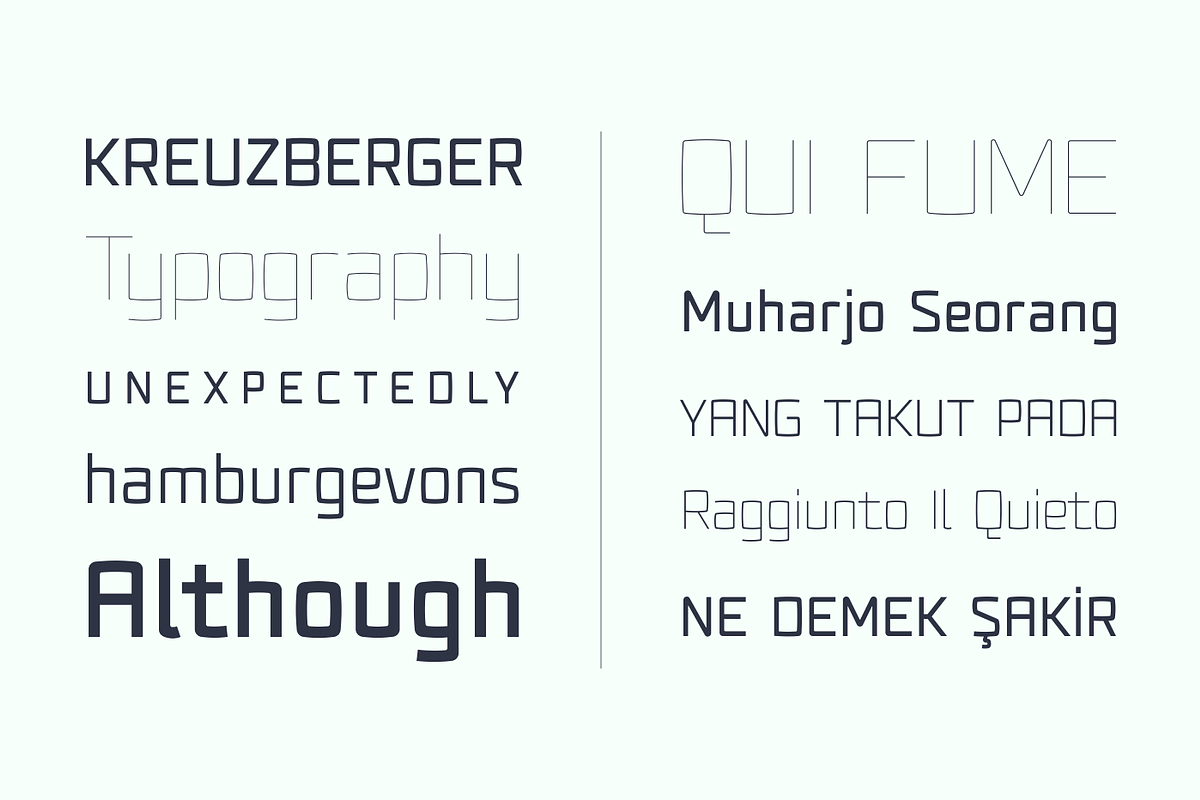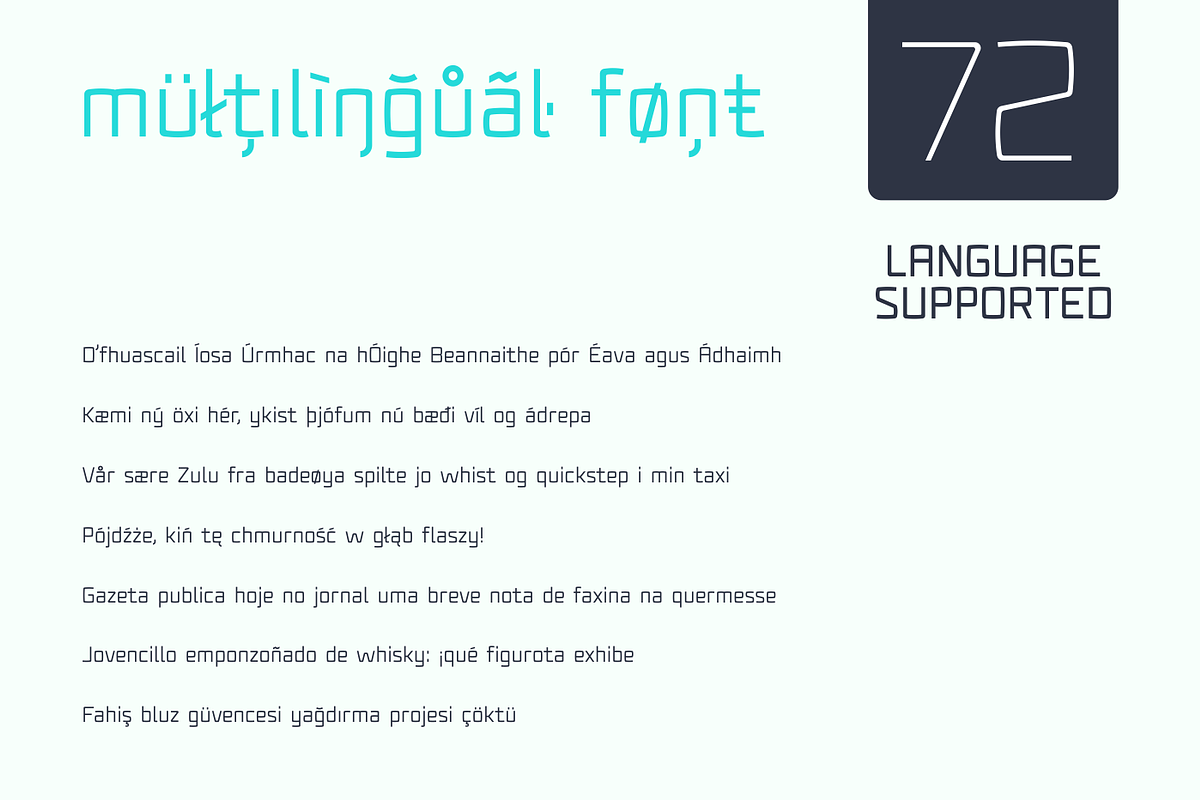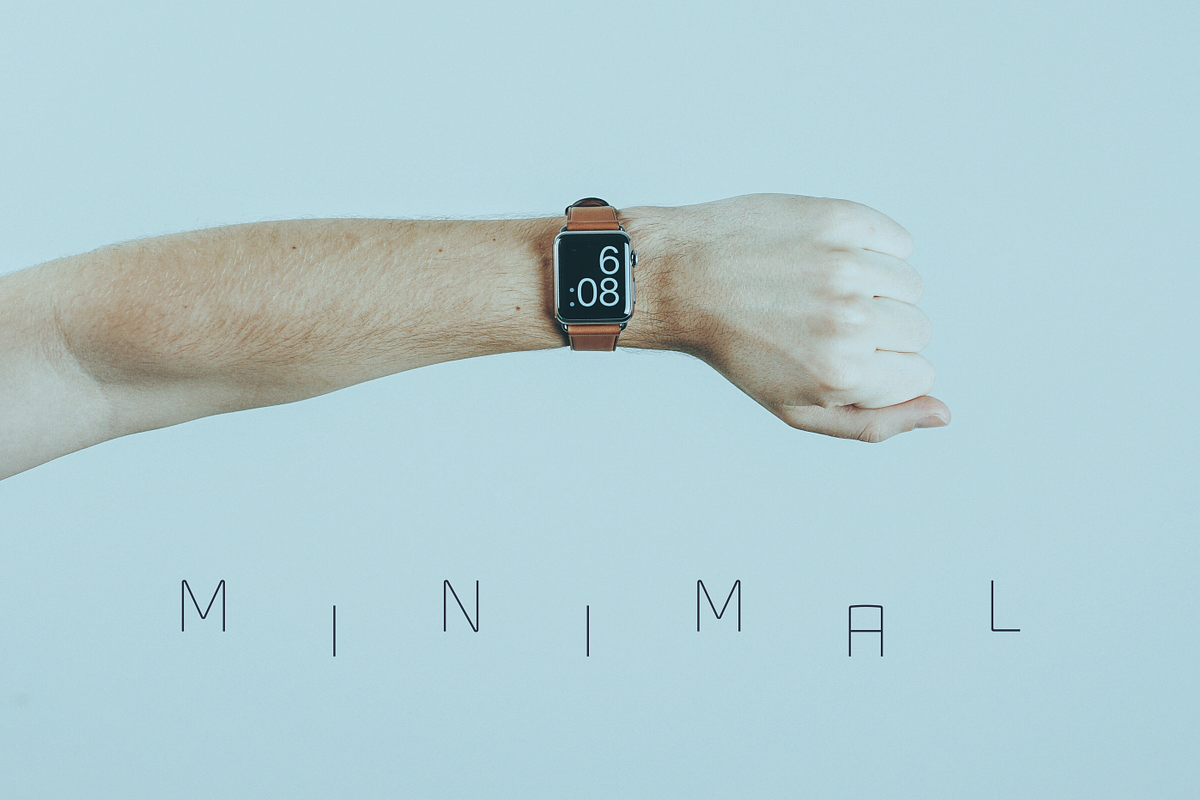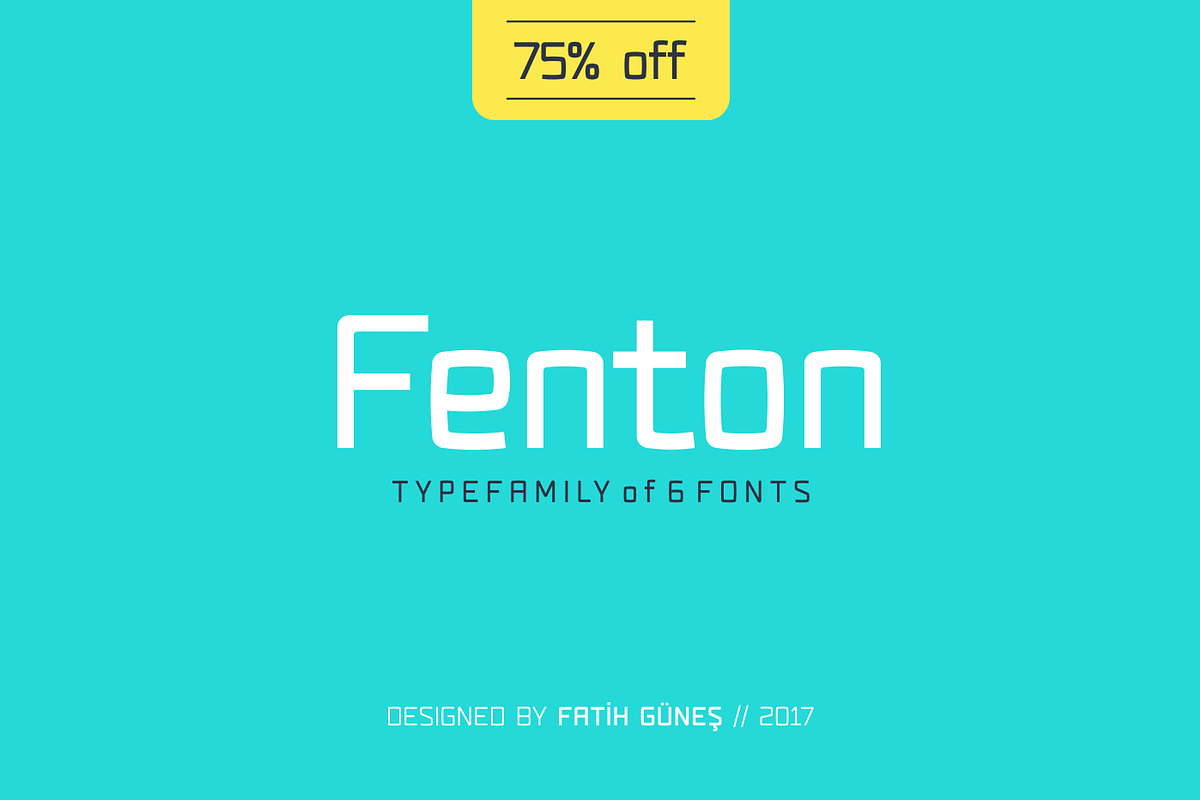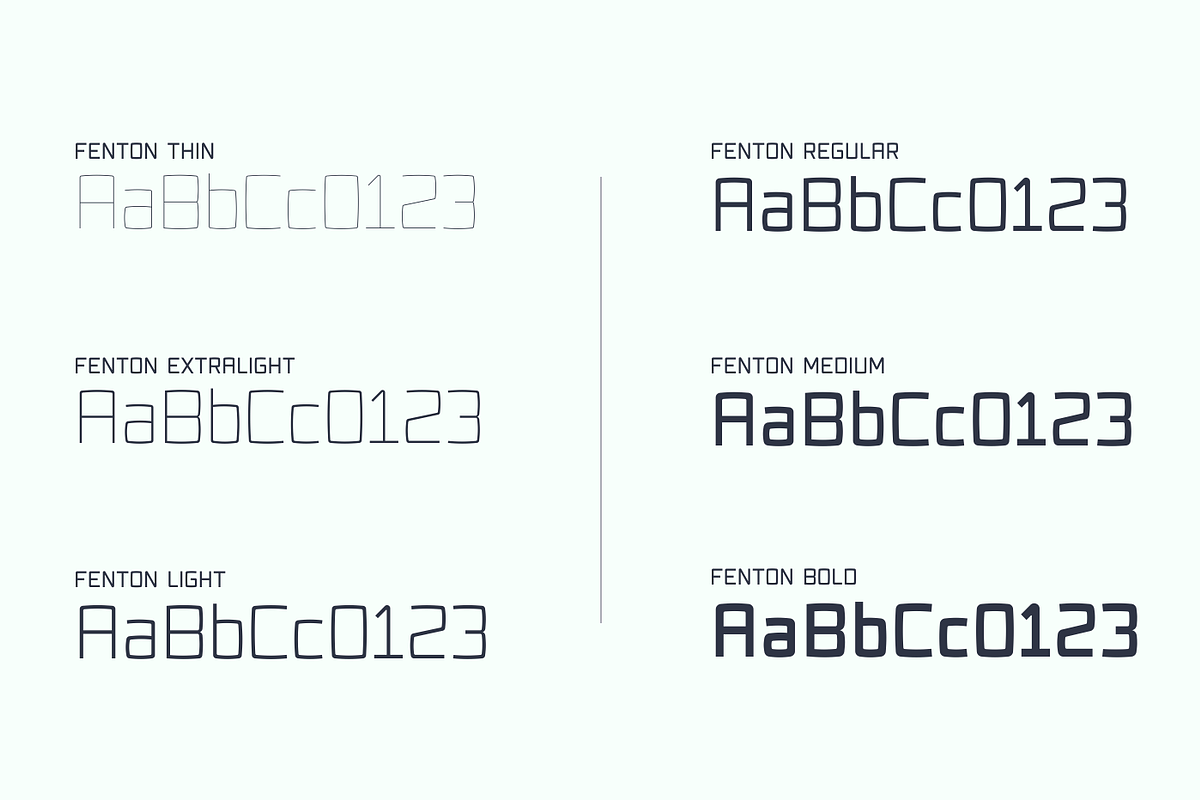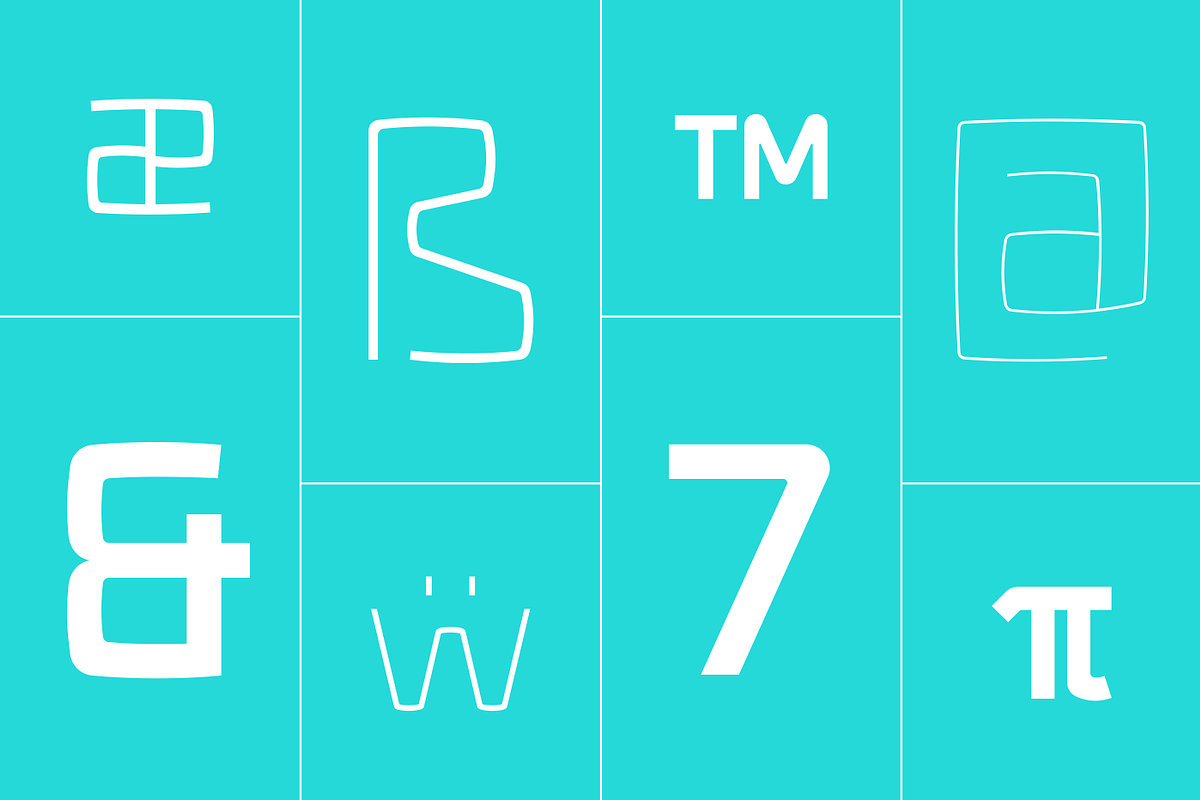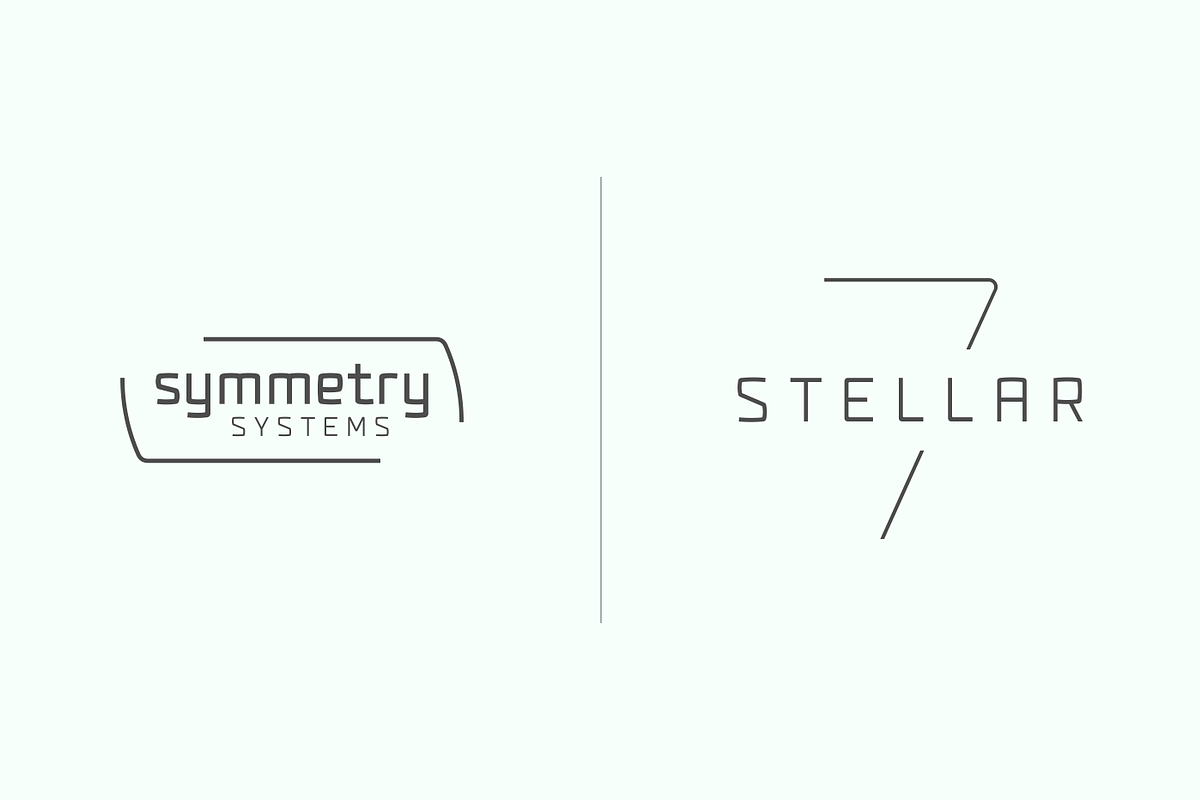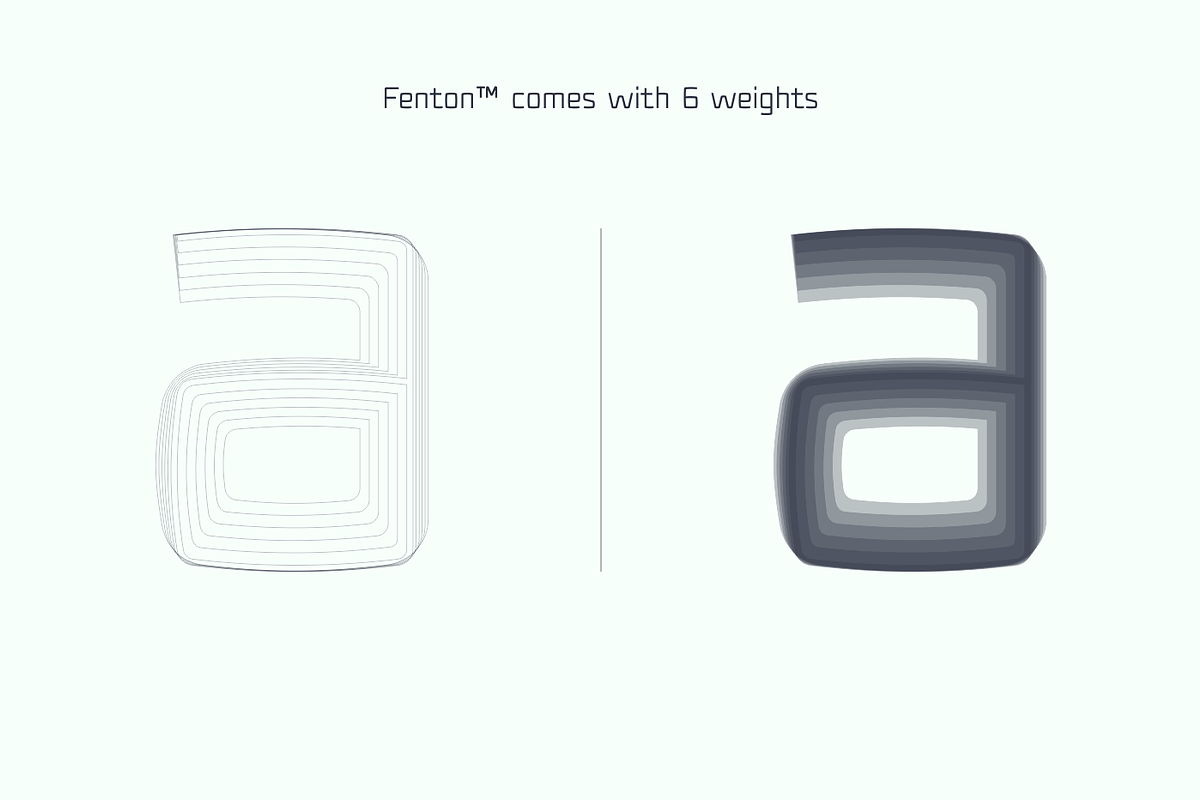
Fenton produced in 2015. Redesigned in 2017.
Fenton Typeface Family comes with 6 weights. The design was inspired by (convex) camber. It has a higher lowercase structure than the normal ones. It has a modern, rounded and squared character. Each weight contains 364 glyph.
It is a type family which you can use in brand and model names of technological devices, futuristic sci-fi movies, newspaper and magazine ads, jerseys, logos, posters, apps, banners and promo images.